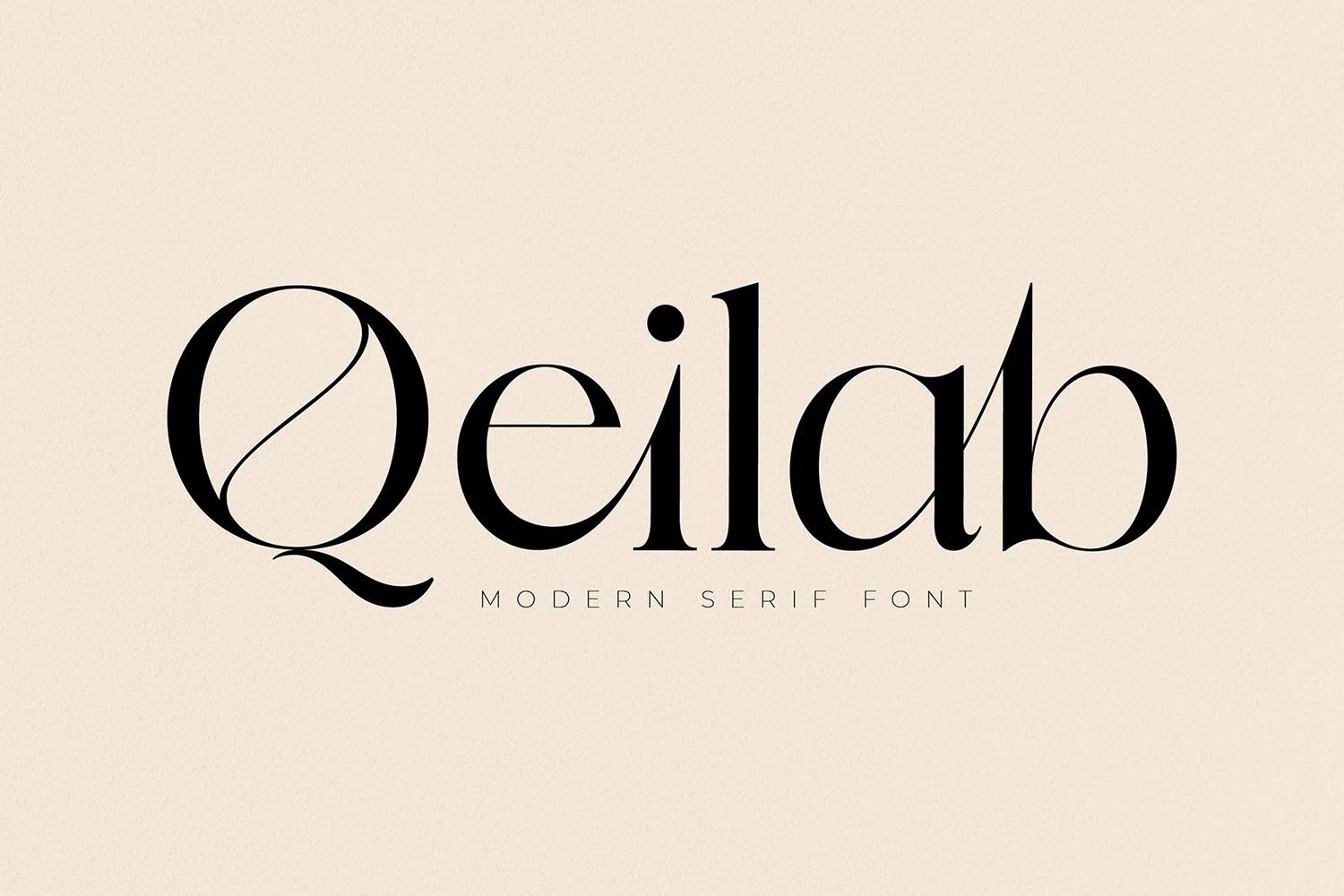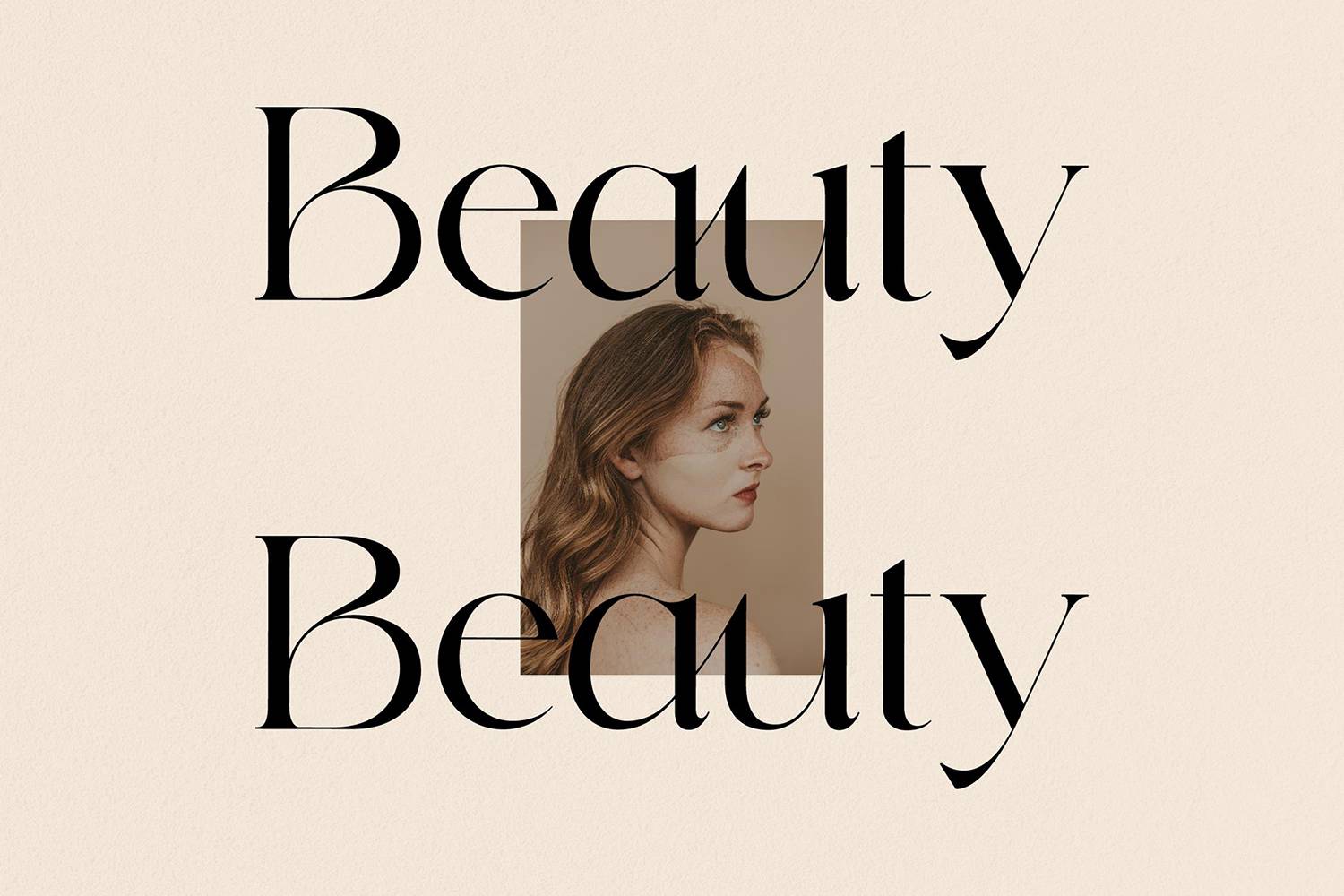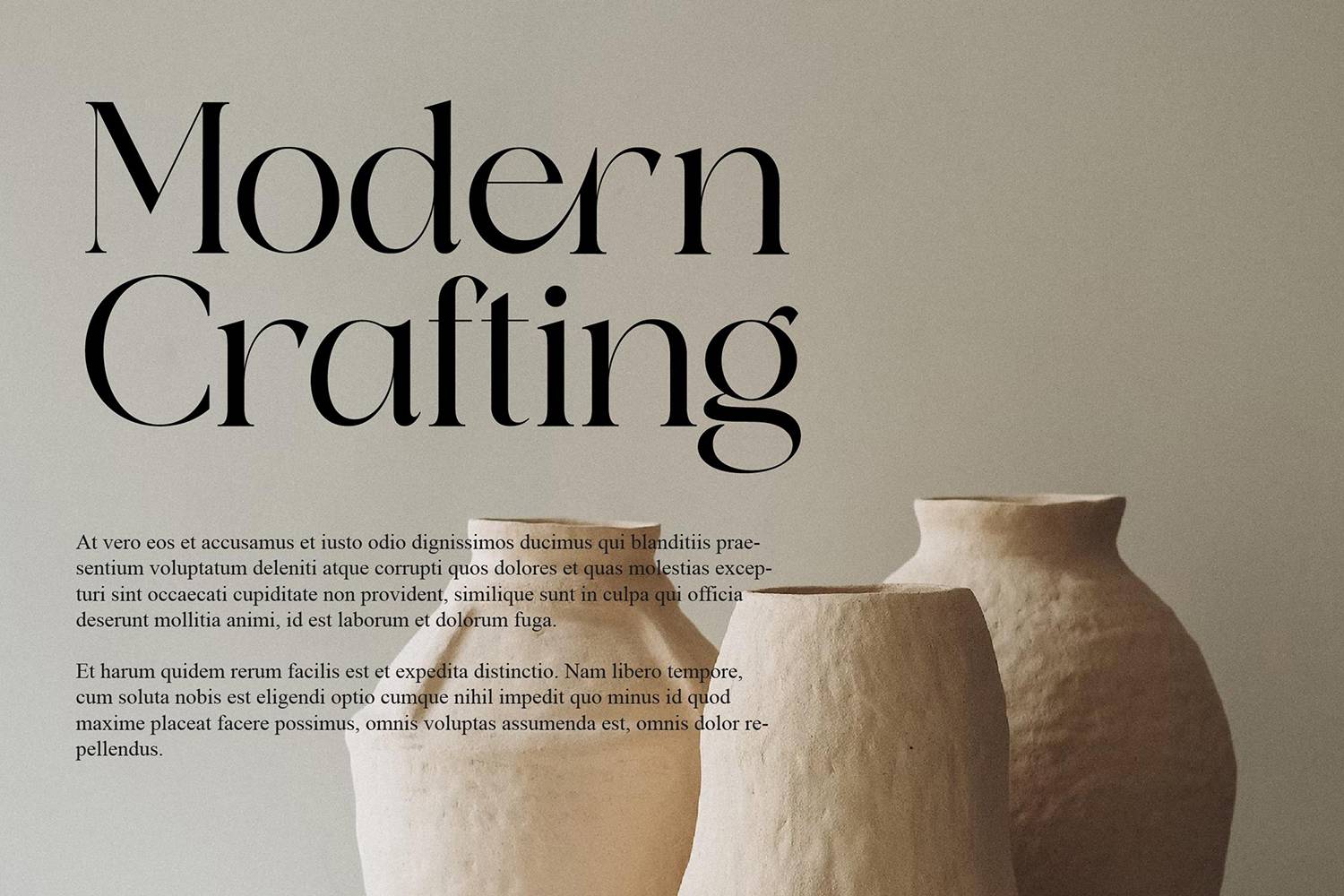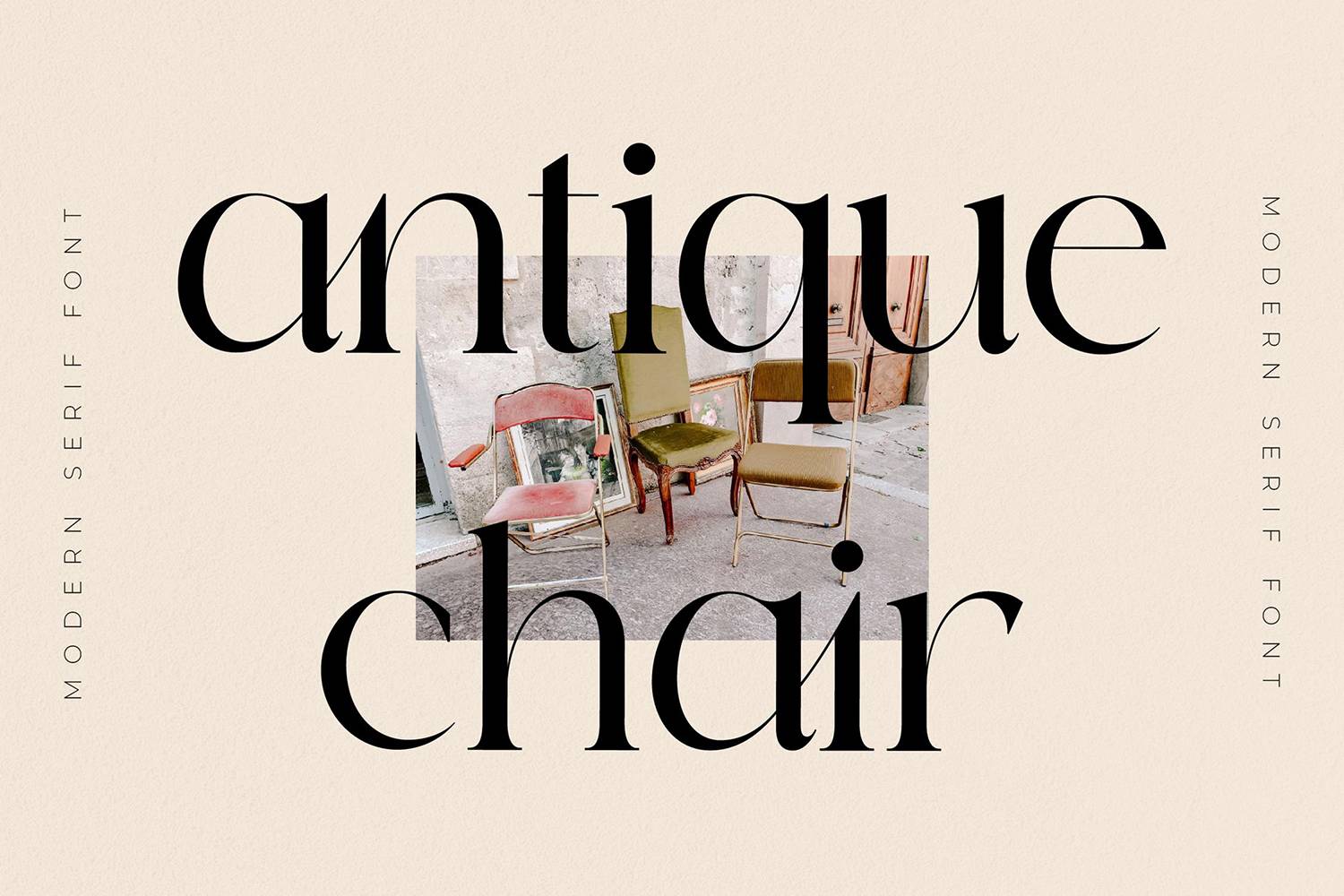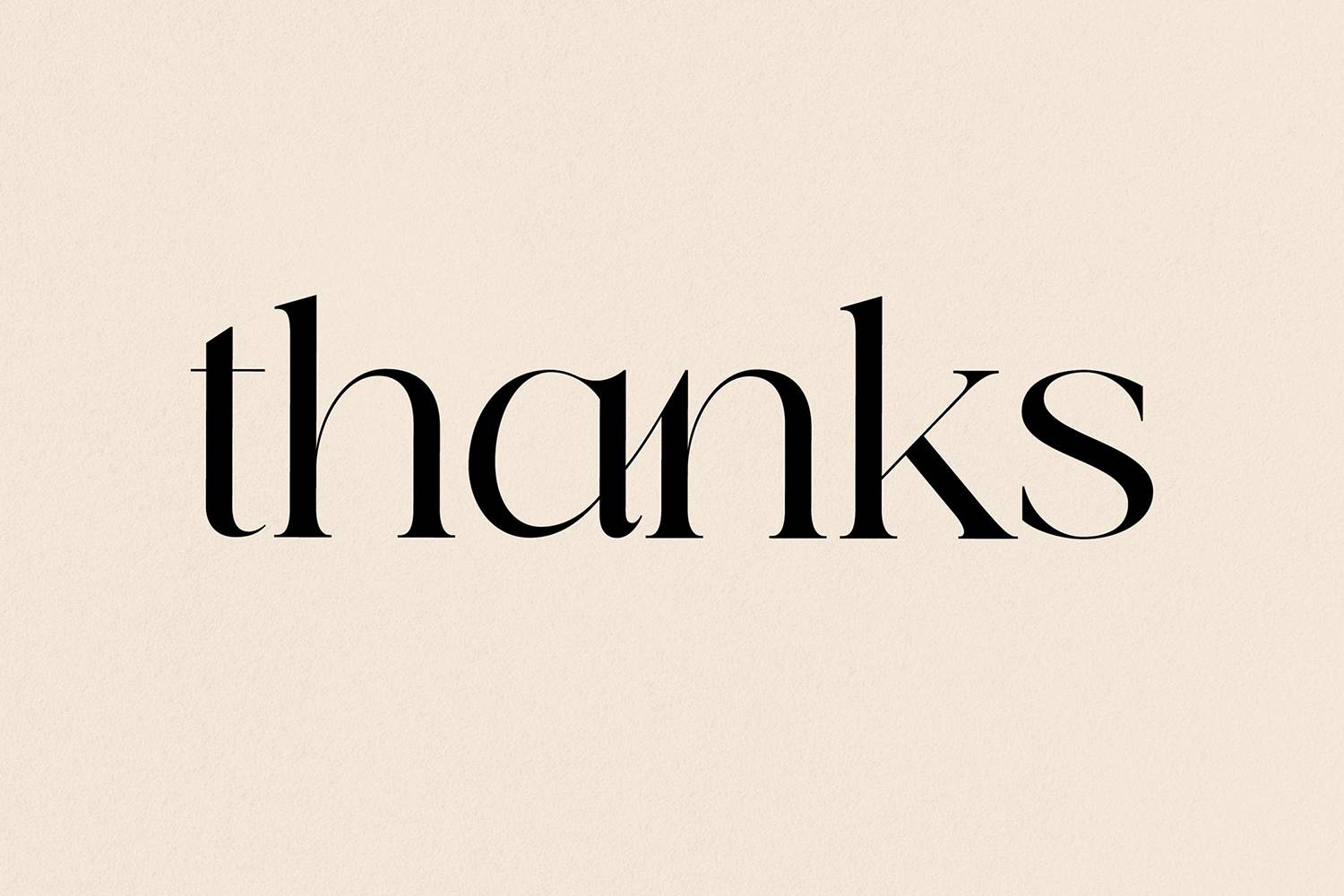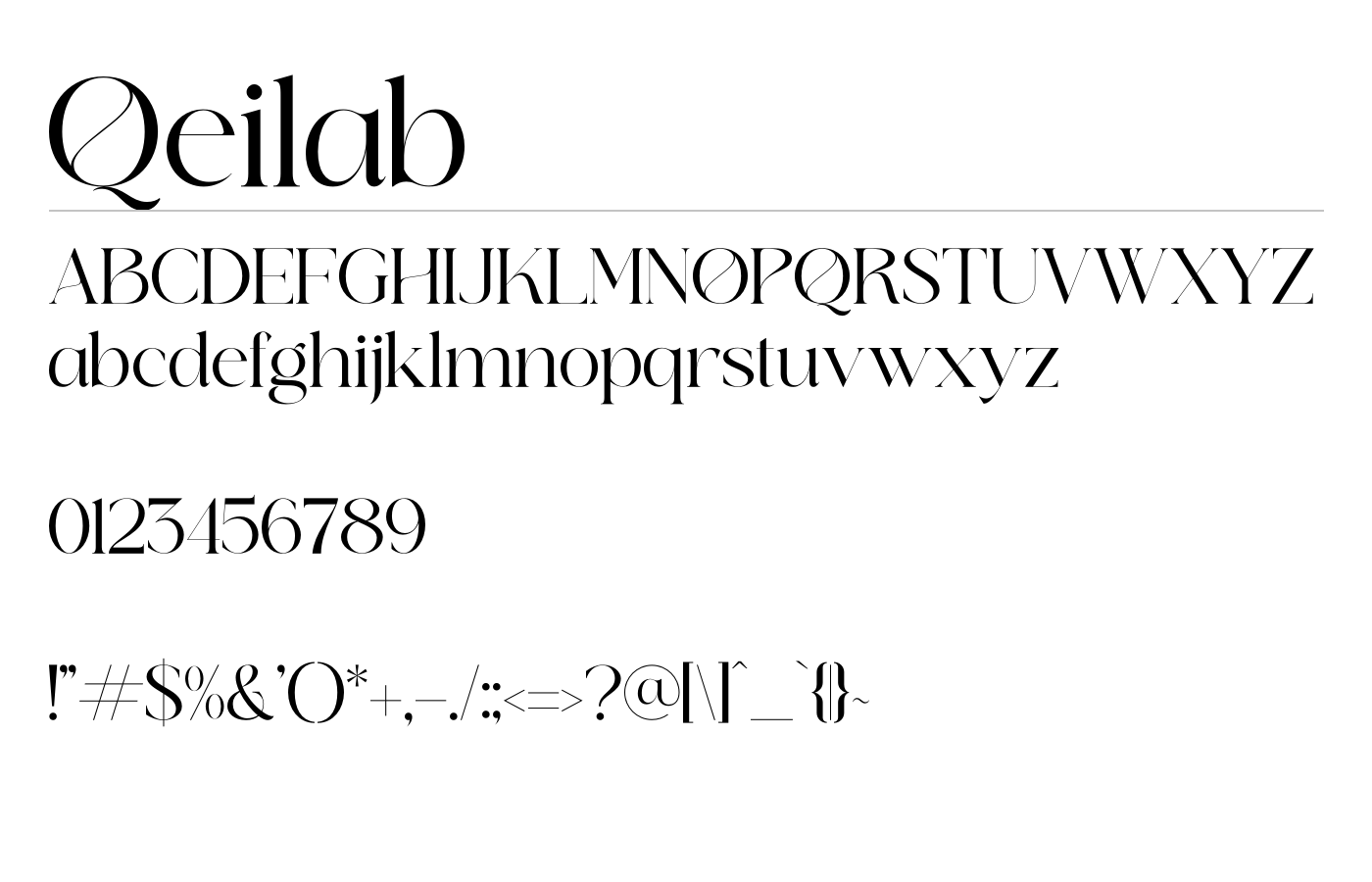
Qeilab is a refined serif font characterized by its high contrast between thick and thin strokes, elegant bracketed serifs, and a tall x-height that enhances readability. Its stylish letterforms blend classic sophistication with a modern flair, making it ideal for luxury branding, editorial headlines, and upscale packaging. This font's delicate yet striking presence adds an air of elegance and exclusivity to any design.
Qeilab Font
About Qeilab Font